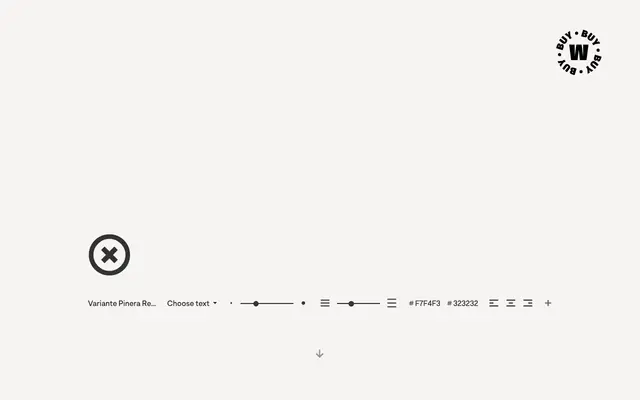
Variante Piñera
A conceptual typeface by Diego Aravena in which every character bears the rejection mark used on Chilean state aid applications during the pandemic.
Designed as a political statement by Diego Aravena, the typeface draws on the bureaucratic symbol of insufficiency stamped on welfare applications under President Piñera's government. Every character the user types is rendered as rejected, turning text itself into a critique of neoliberal state policy and the marginalisation of Chile's working population. Available as a free personal-use download.
A conceptual display typeface where every letterform is marked with the rejection stamp used on Chilean pandemic aid applications, making it a political artefact rather than a conventional text face.